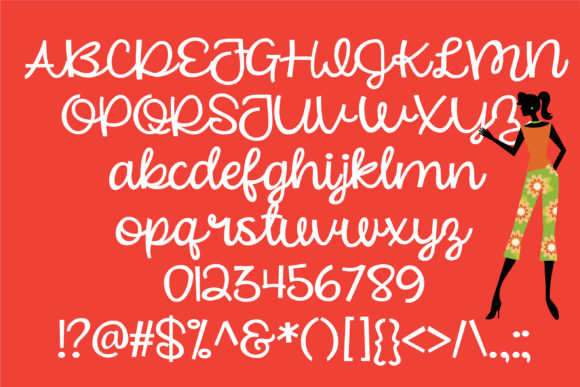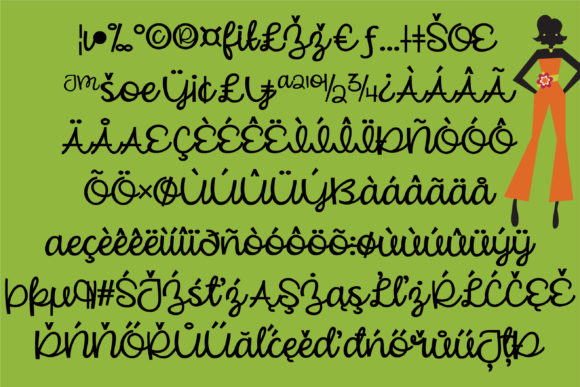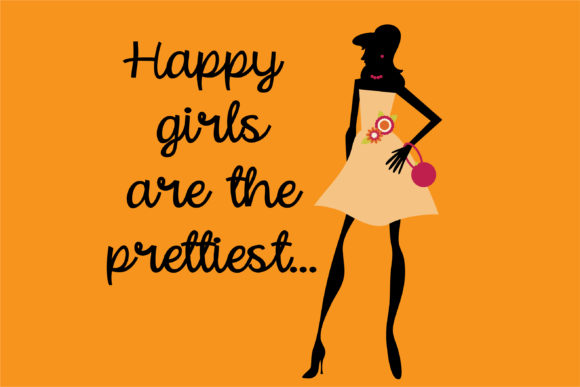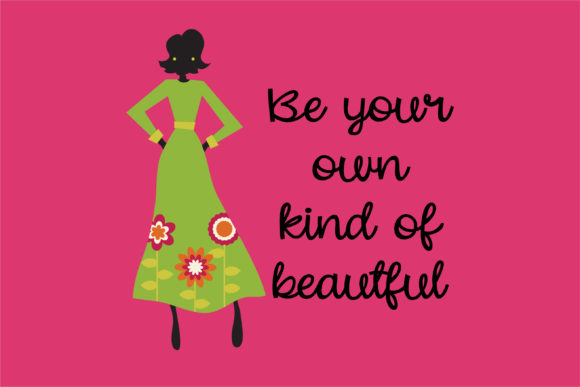
Beautiful Mess Font
This casual hand-crafted script has a medium weight and makes a great font for crafting, writing and more. Pair it with it’s sister print: ZP Beautiful Mind to create stand out designs.